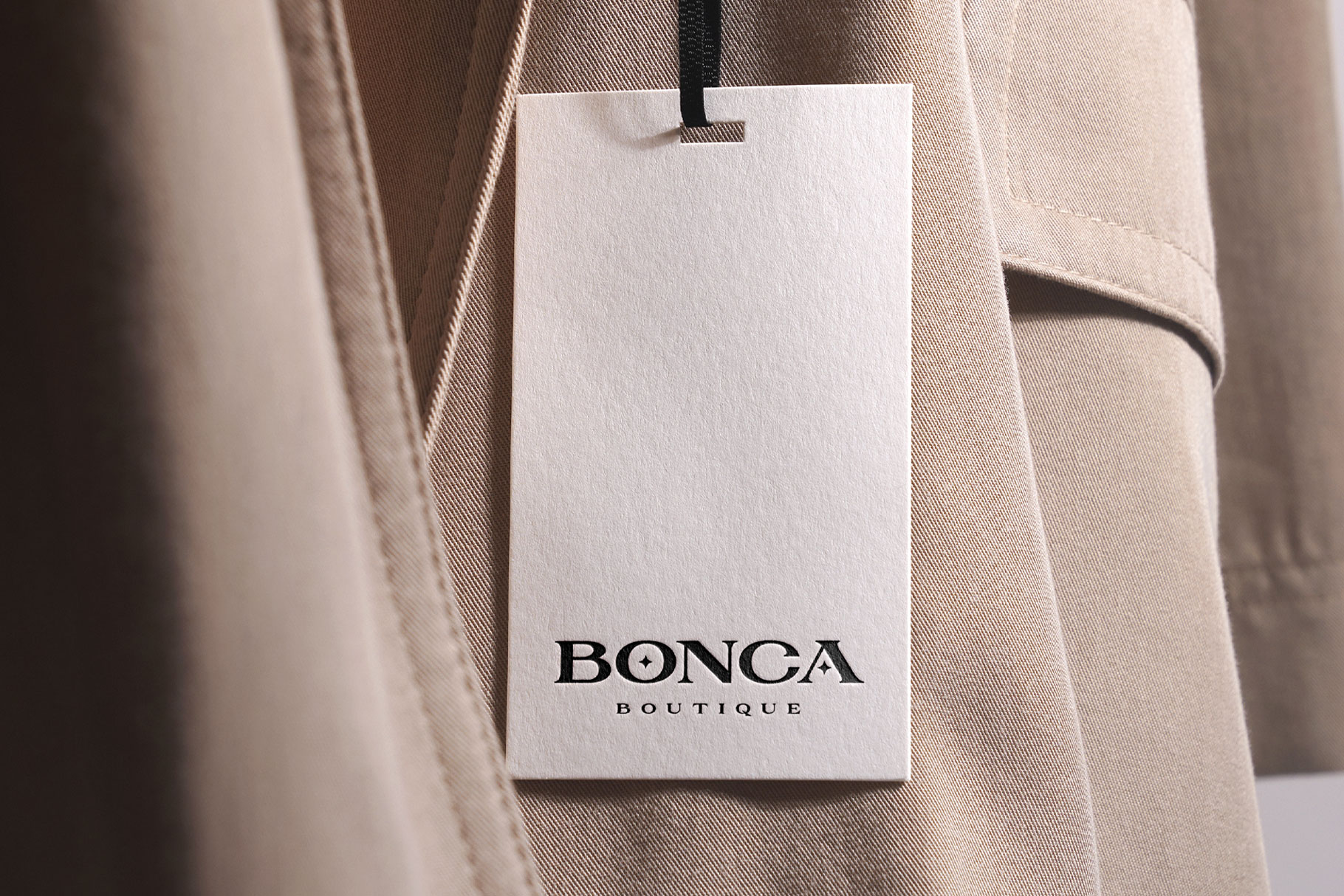
Benira Vintage Classy Serif Font
Benira is vintage classy font with wide aesthetic sharp essence of the elegant fashion. Benira is a perfectly choice for any creative endeavor, chic, lifestyle design such as logos, advertisements, stationery, branding project, display and magazine, invitation, corporate brand, product design, label, business project and many other project with elegant touch.